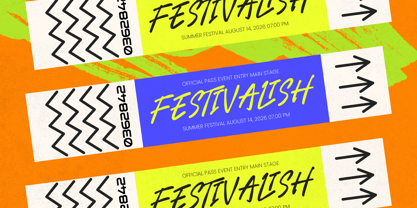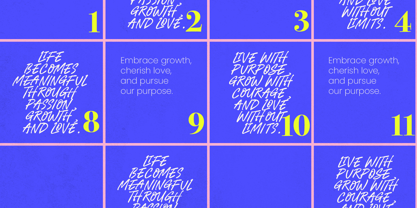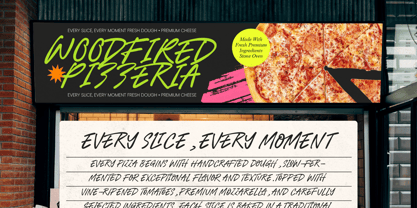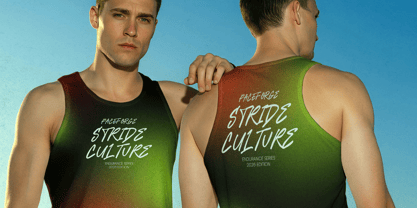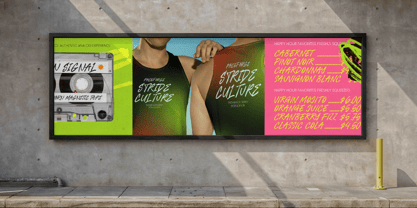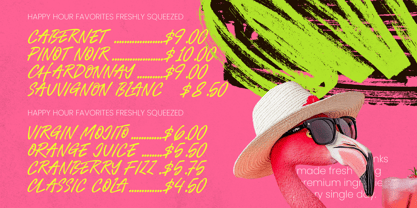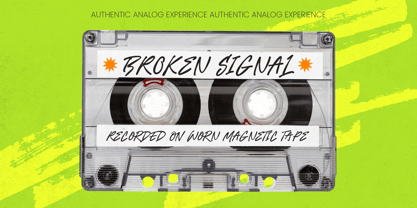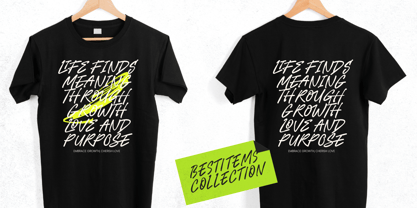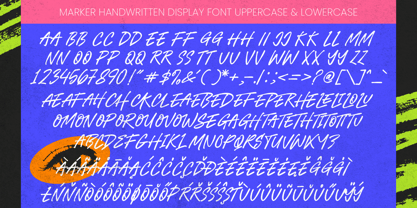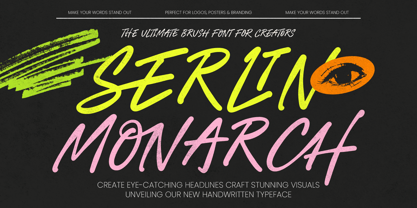
Serlin Monarch
The Serlin Monarch Font Family was designed by Heru Utama Putra and published by Letterena Studios. Serlin Monarch contains 2 styles and family package options. More about this family
Serlin Monarch - Marker Handwritten Display Font
Elevate your creative vision with a raw, energetic aesthetic that captures the essence of urban culture. Serlin Monarch - Marker Handwritten Display Font stands out as a premier choice for designers seeking authentic texture and dynamic brush strokes. This marker-style typeface delivers a street-style energy that instantly commands attention, ensuring your headlines are both memorable and visually striking.
Experience unparalleled creative freedom with a font engineered for high-end customization. Featuring 35 unique ligatures and 35 stylistic alternates, Serlin Monarch - Marker Handwritten Display Font provides an organic flow that mimics genuine handcrafted lettering. Its bold, expressive character allows for a natural handwriting feel, making it an essential tool for any modern creator looking to push the boundaries of contemporary typography.